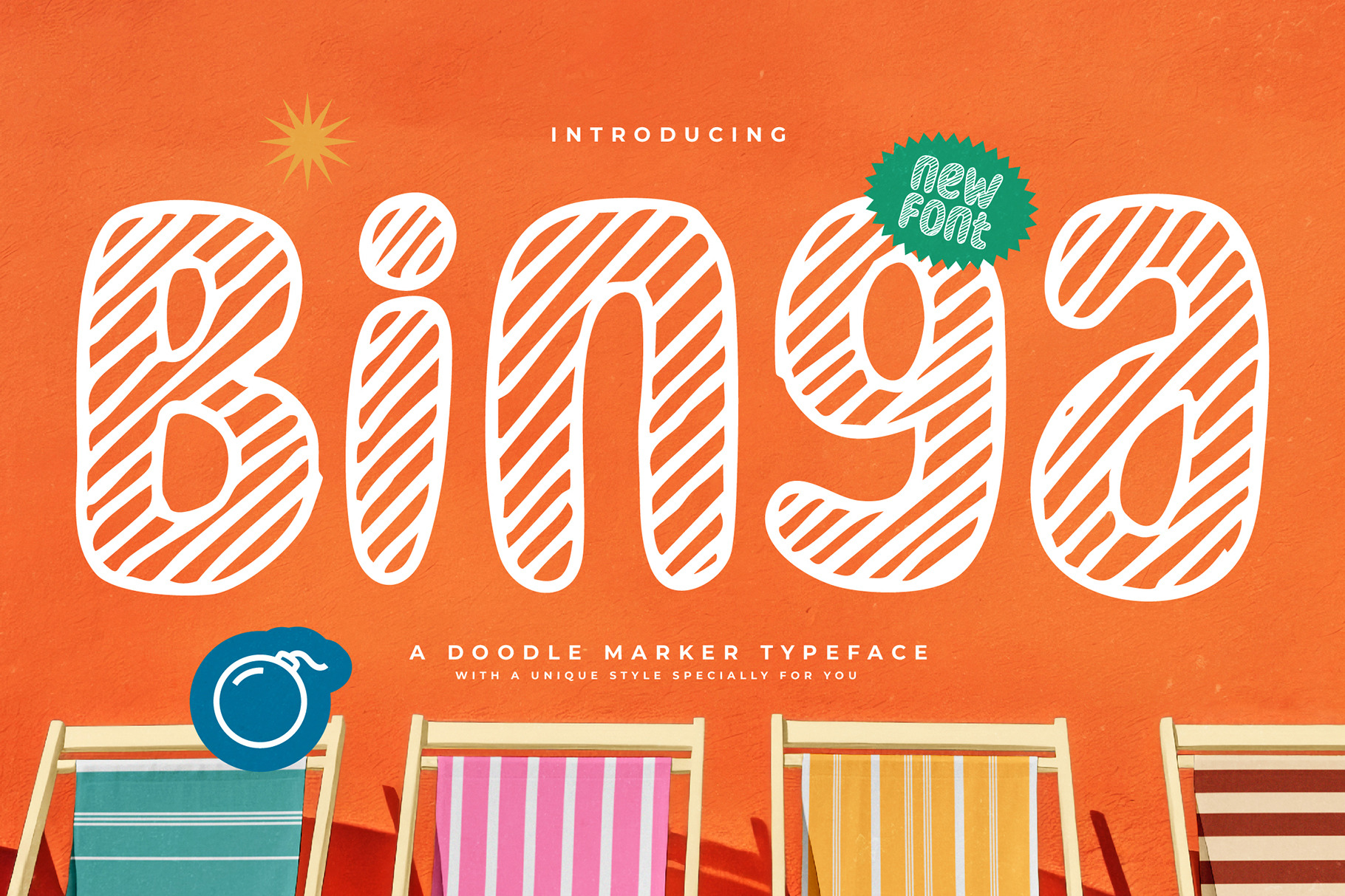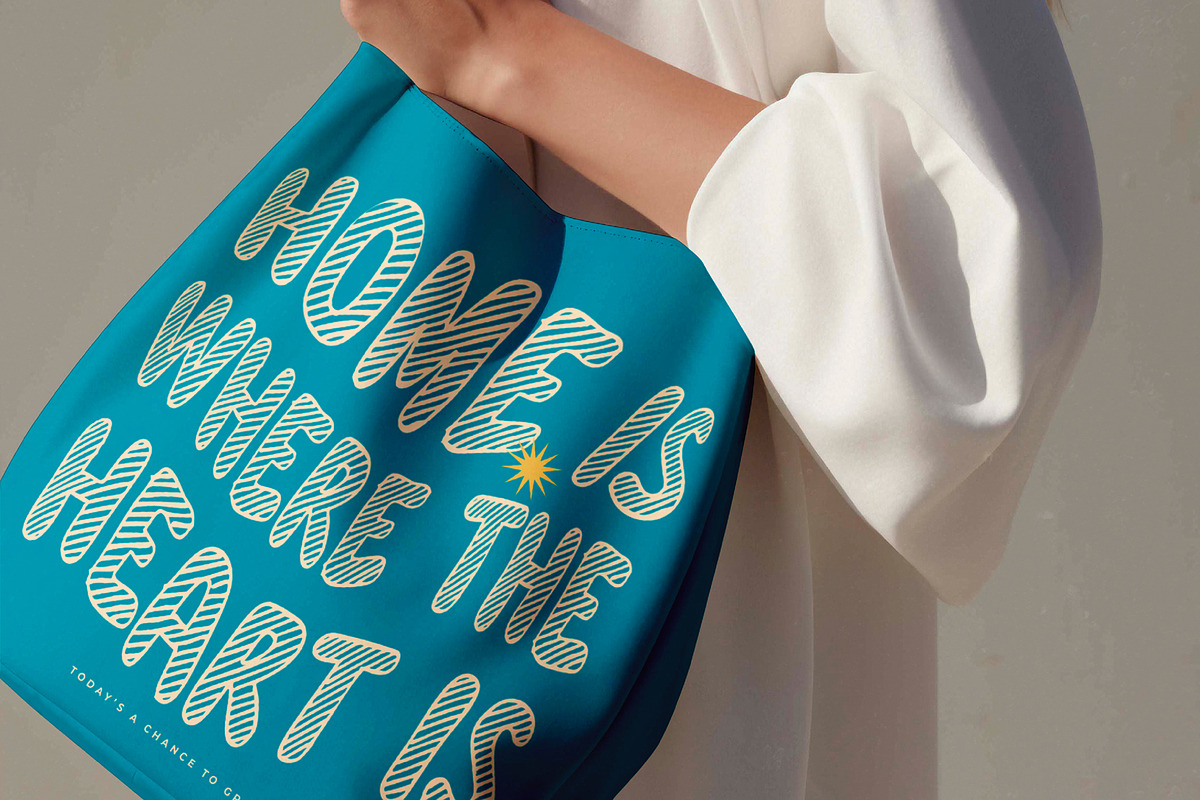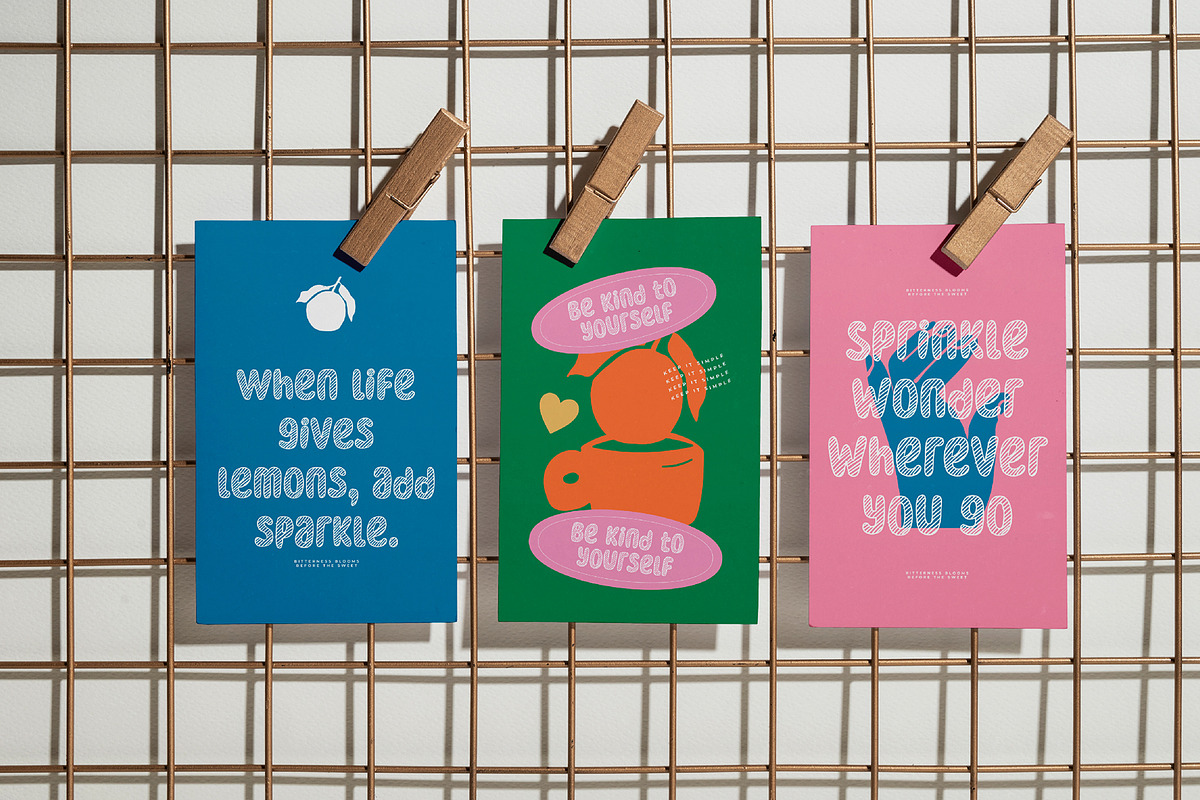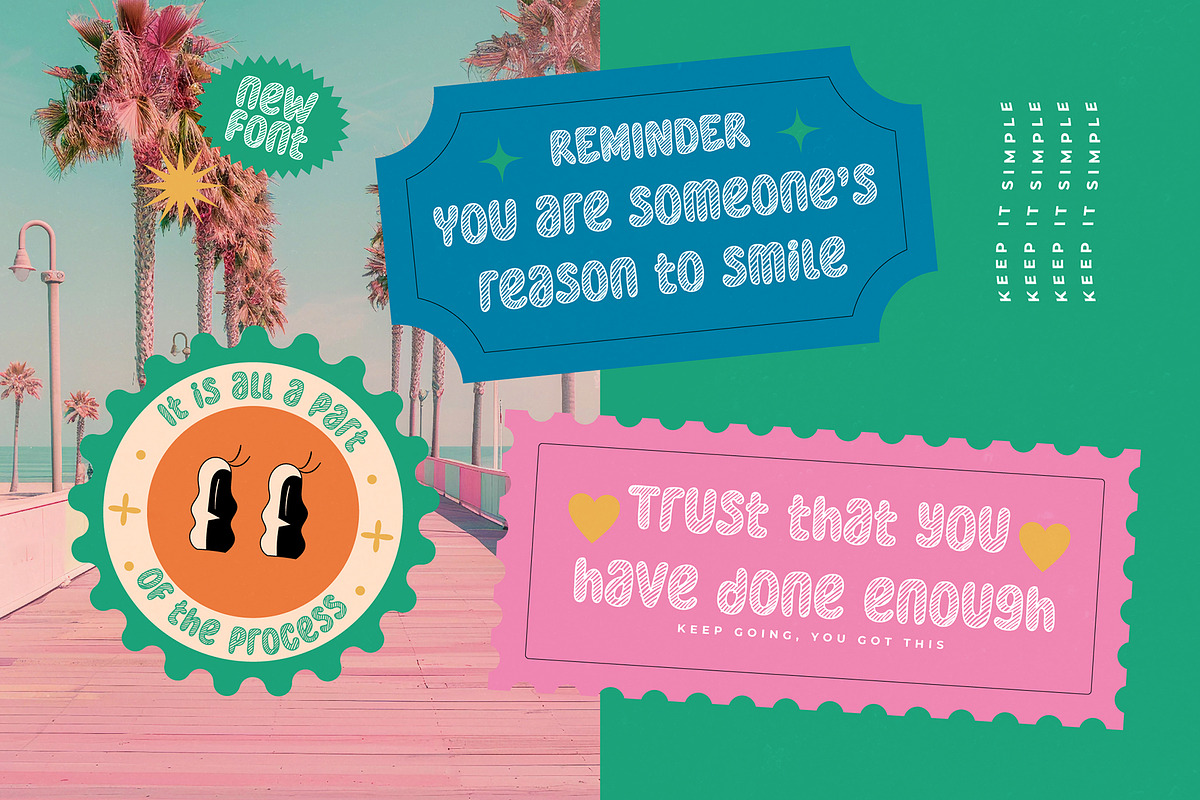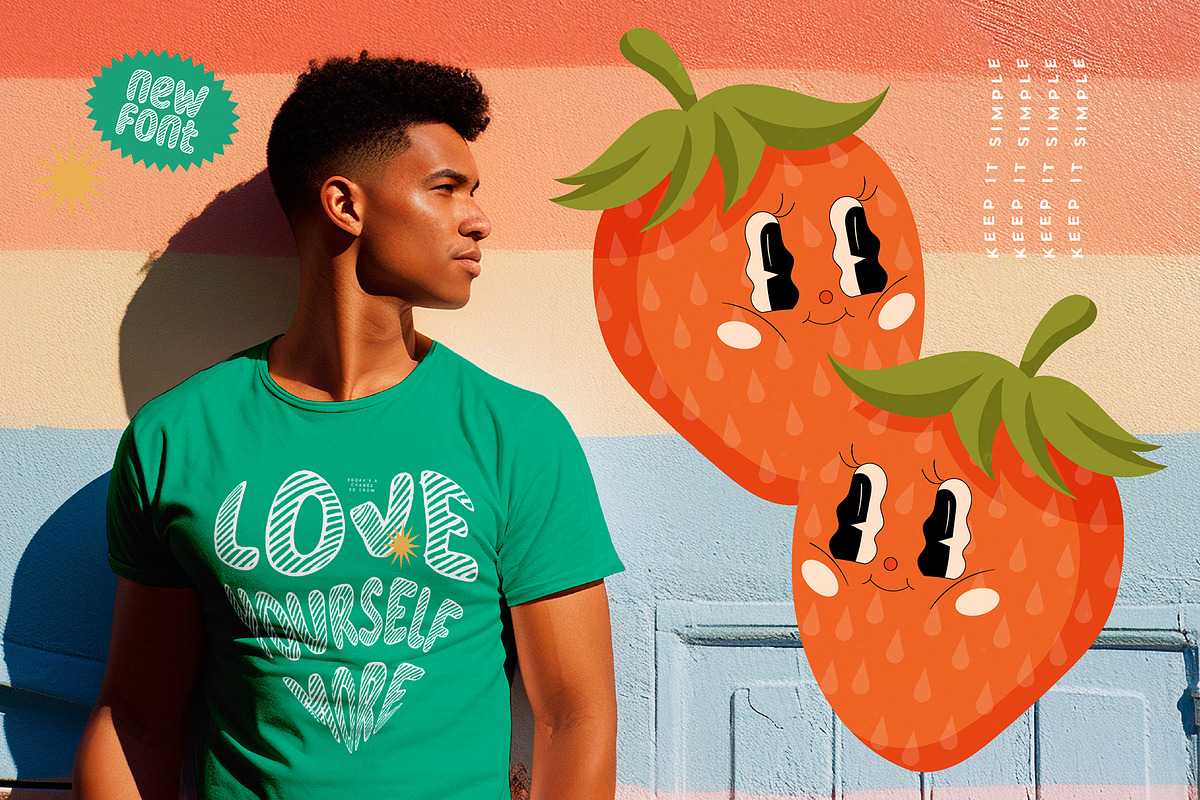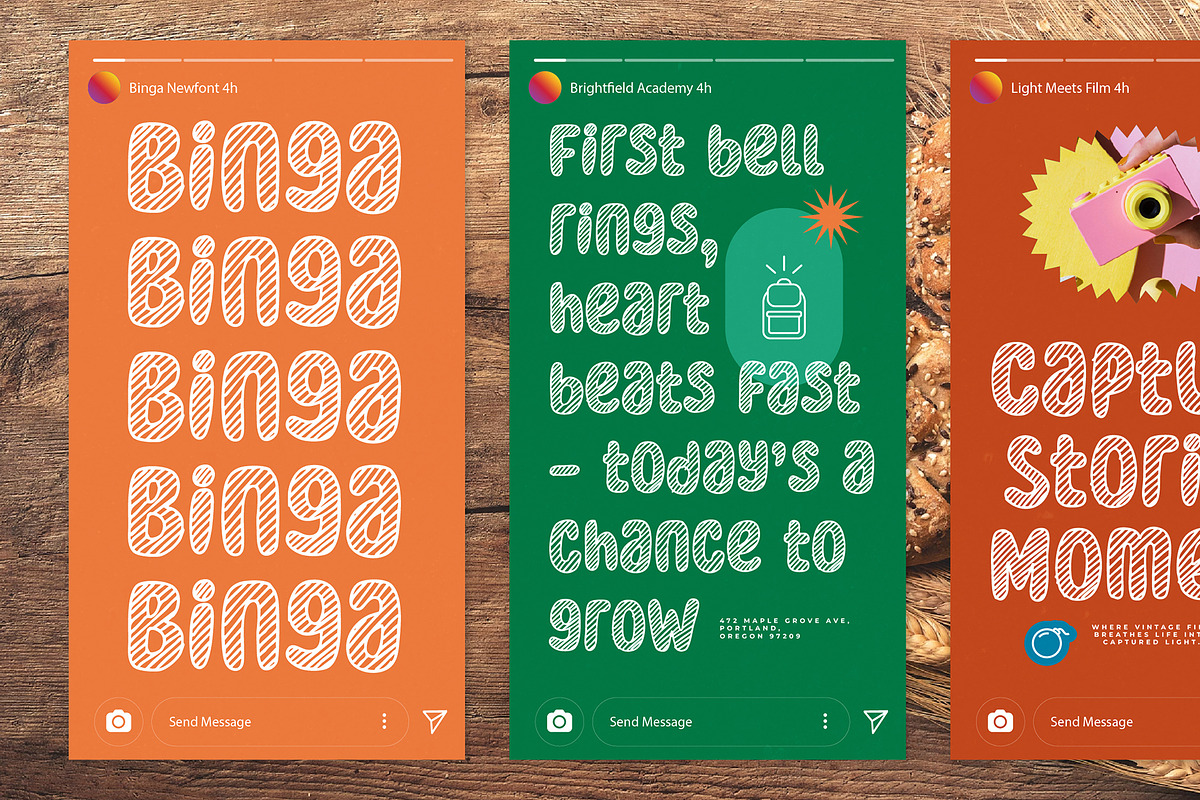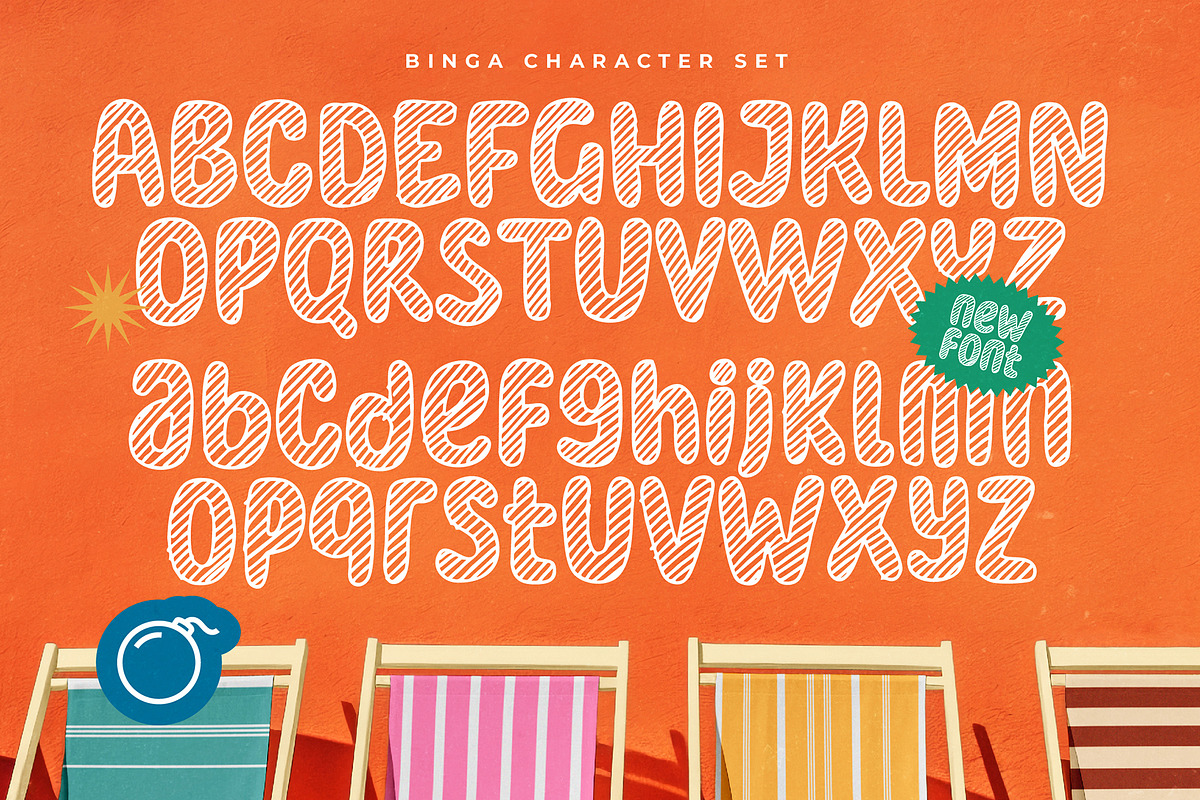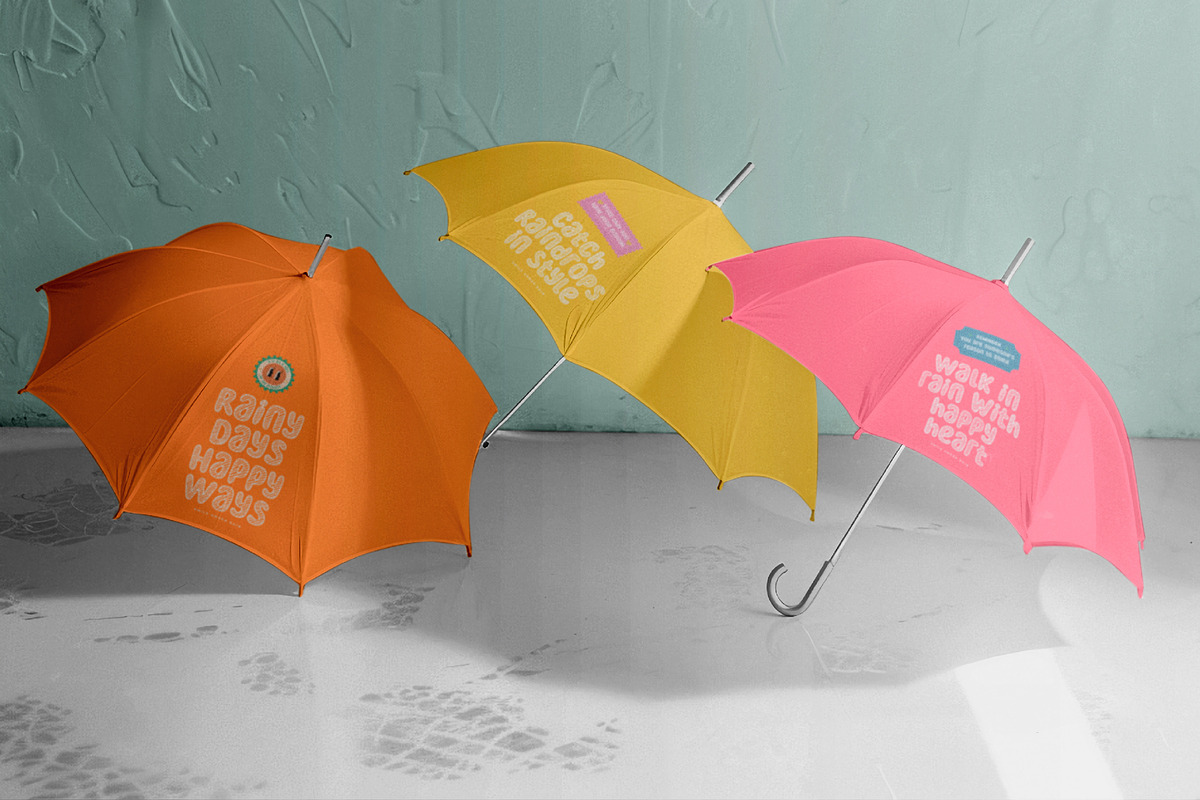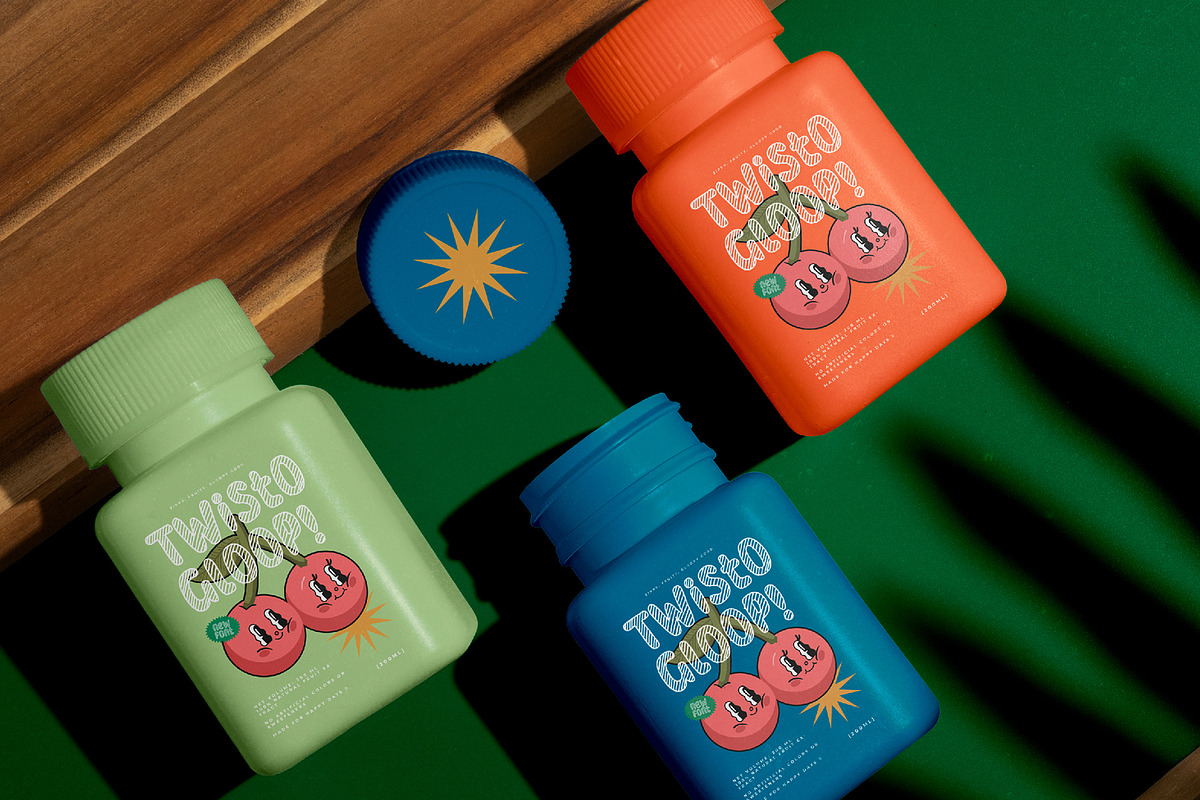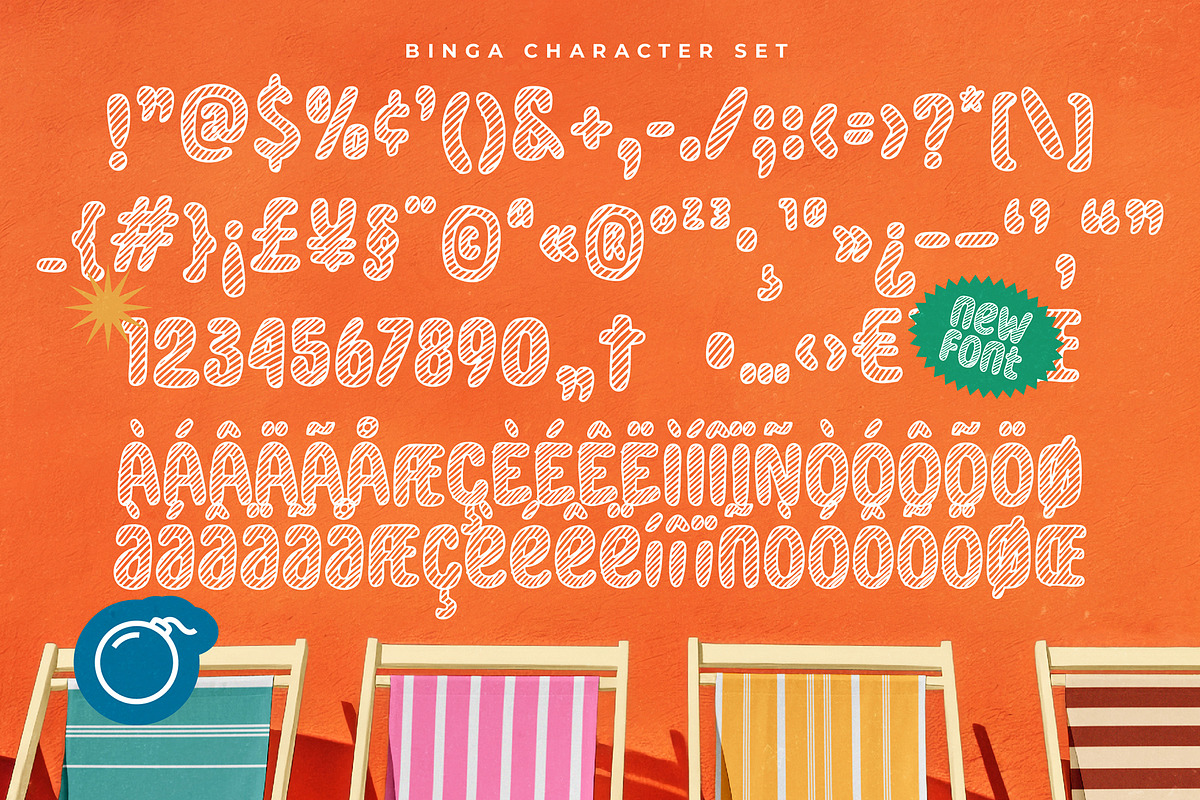
Binga Doogle Marker Typeface
Binga Doodle Font
Binga doodle font is a unique, modern geometric font with a unique, elegant, and modern geometric style. It is a display font perfect for branding projects, logos, social media posts, product packaging, labels, etc.